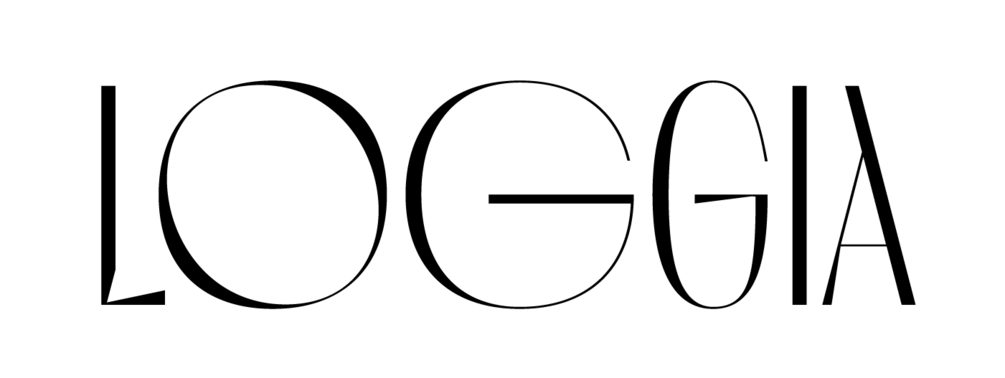
Loggia
Loggia is a new display typeface designed for luxury. Packed with pro features, ligatures and alternates, this typeface will help you create amazing brand materials.
Designed by Andrei Robu.